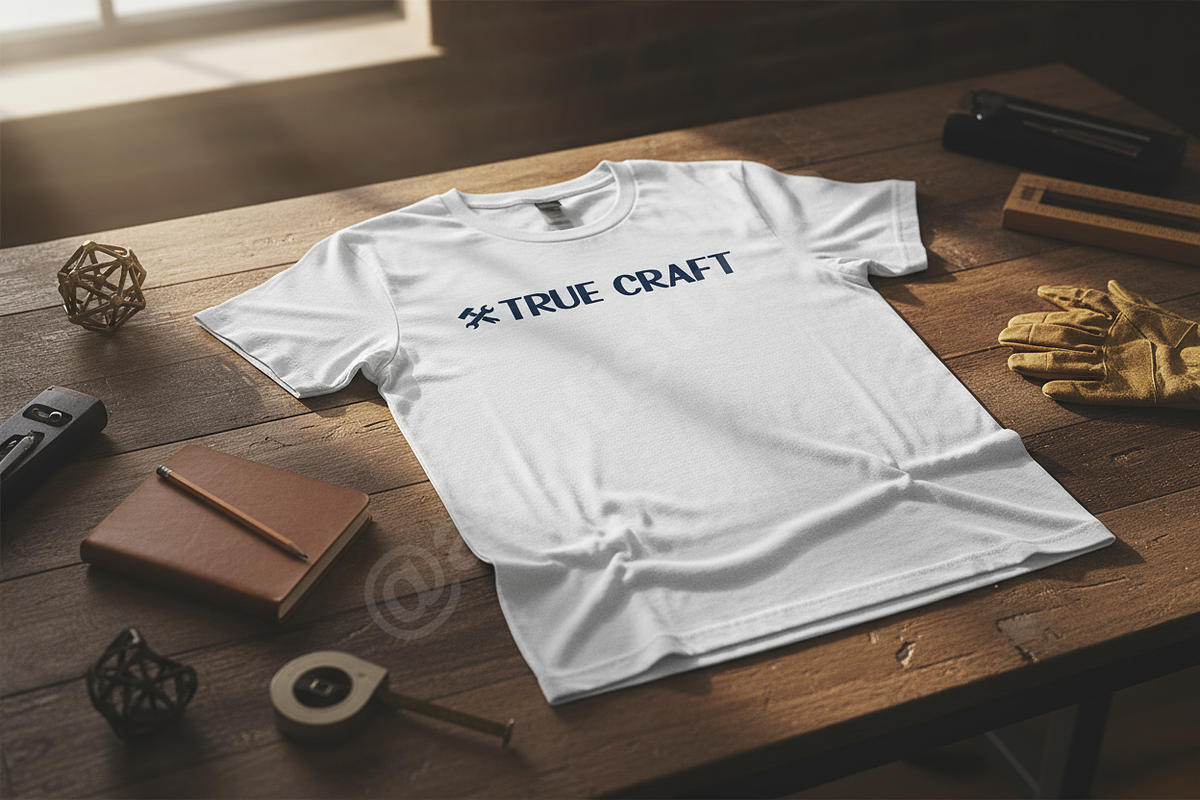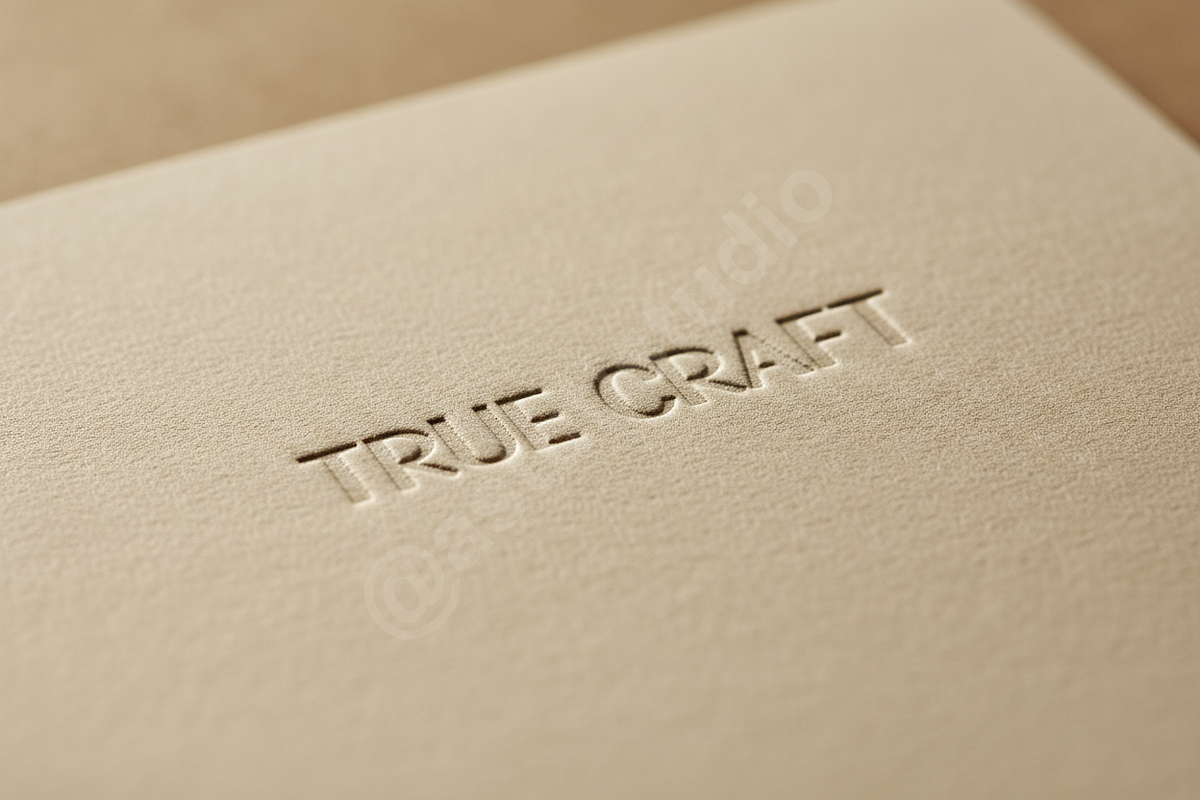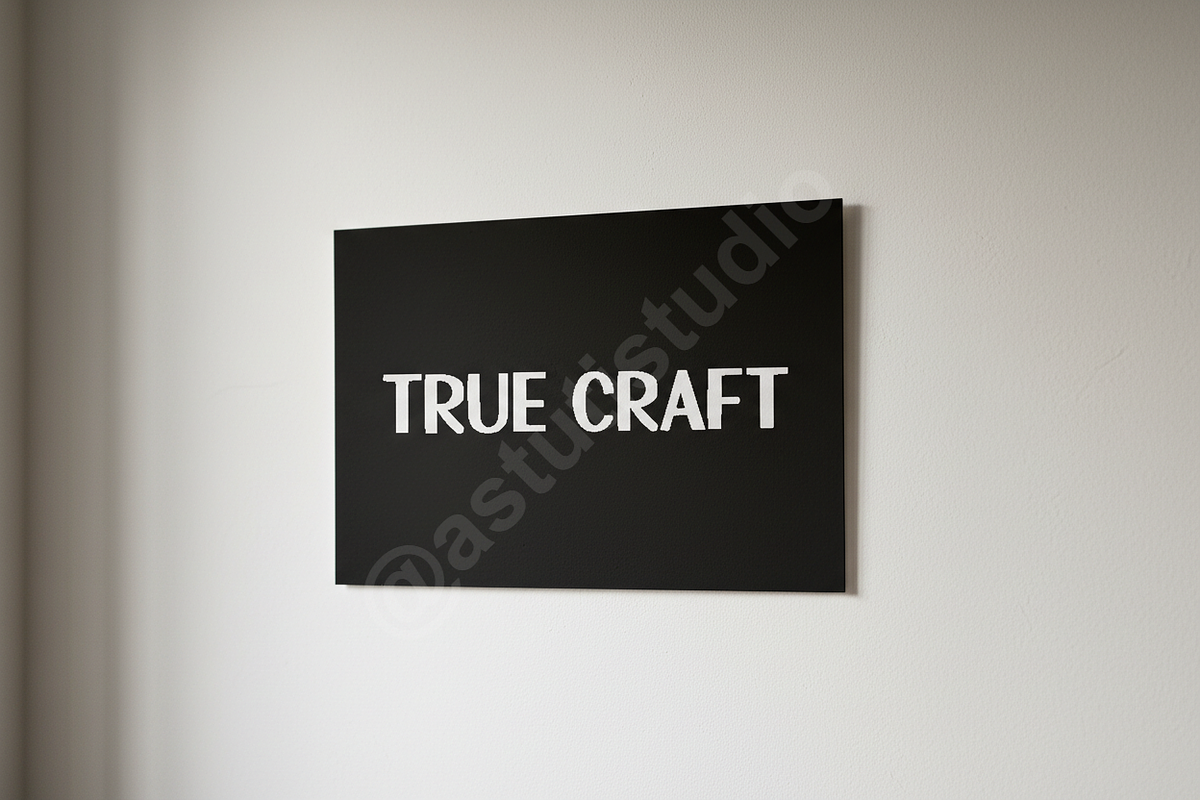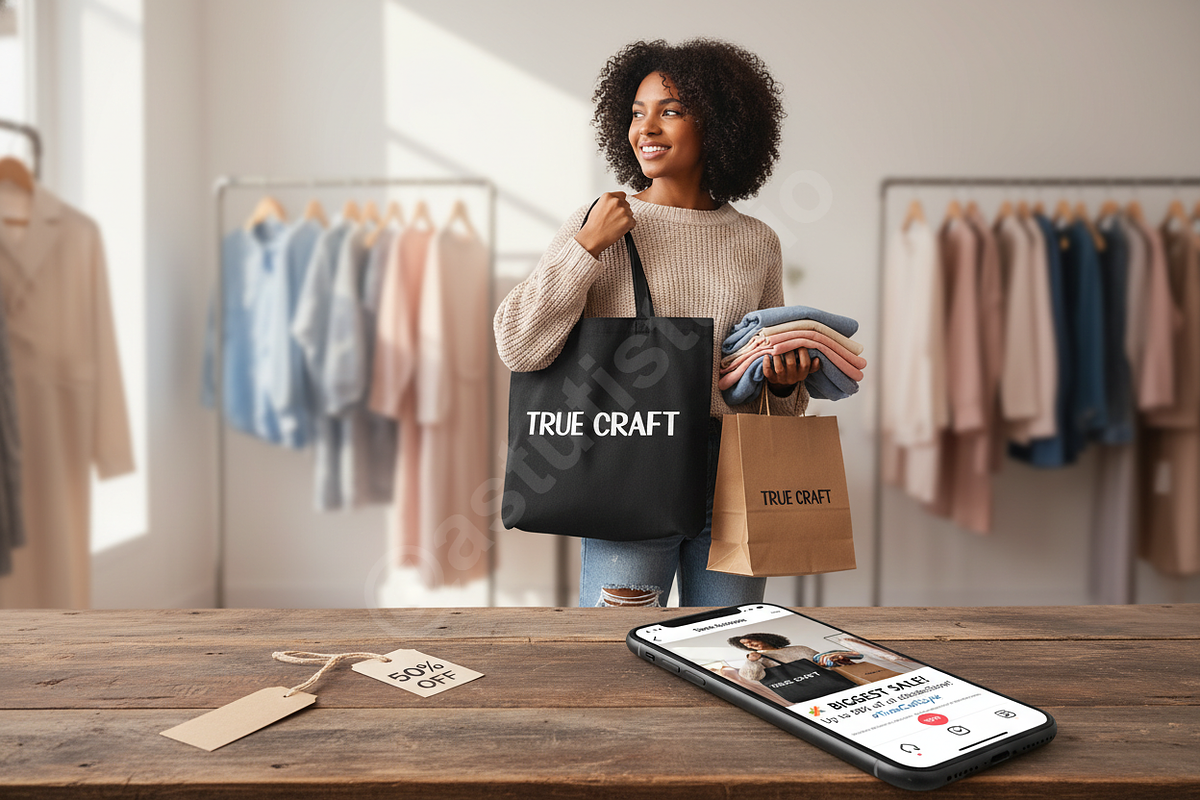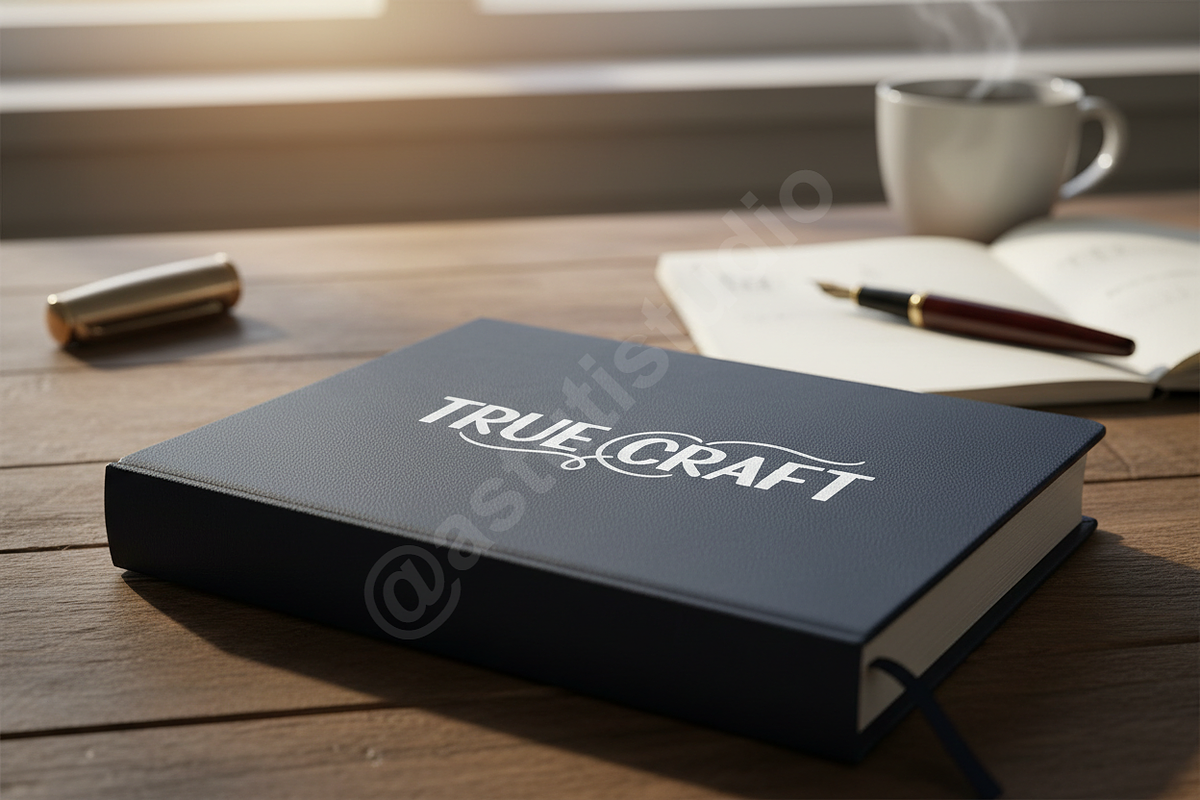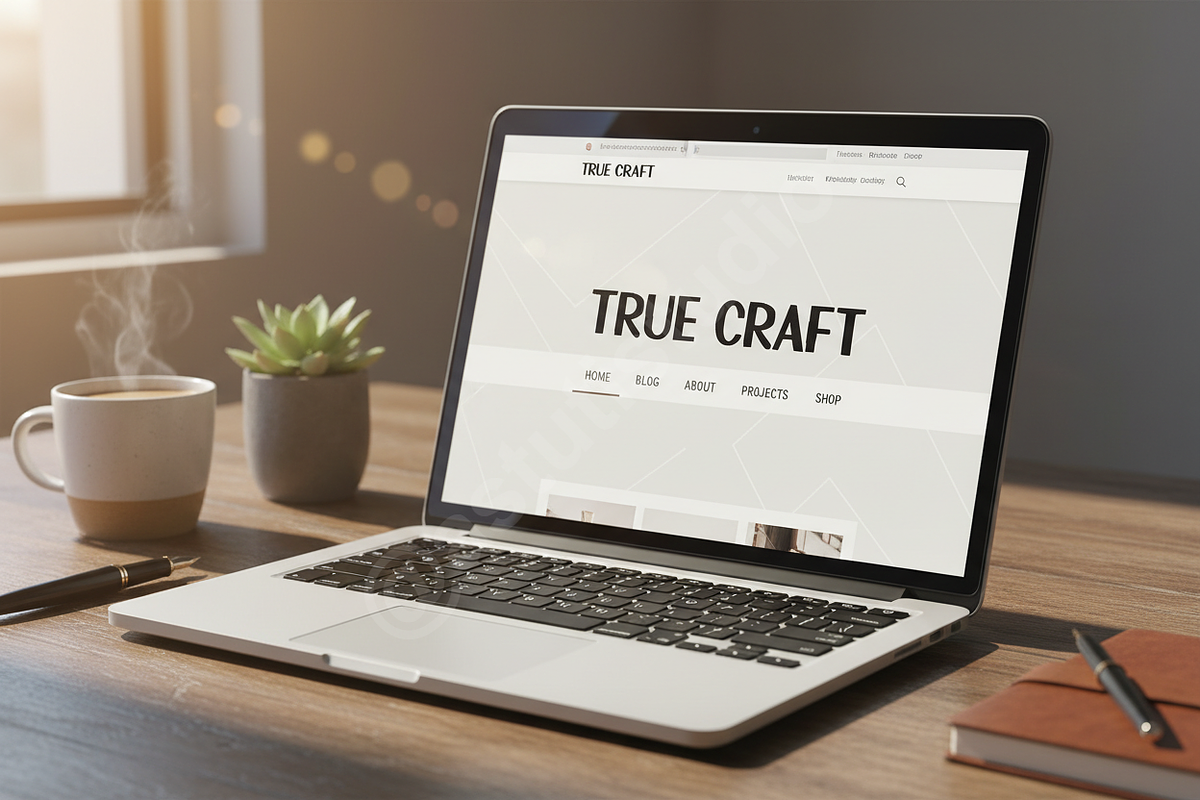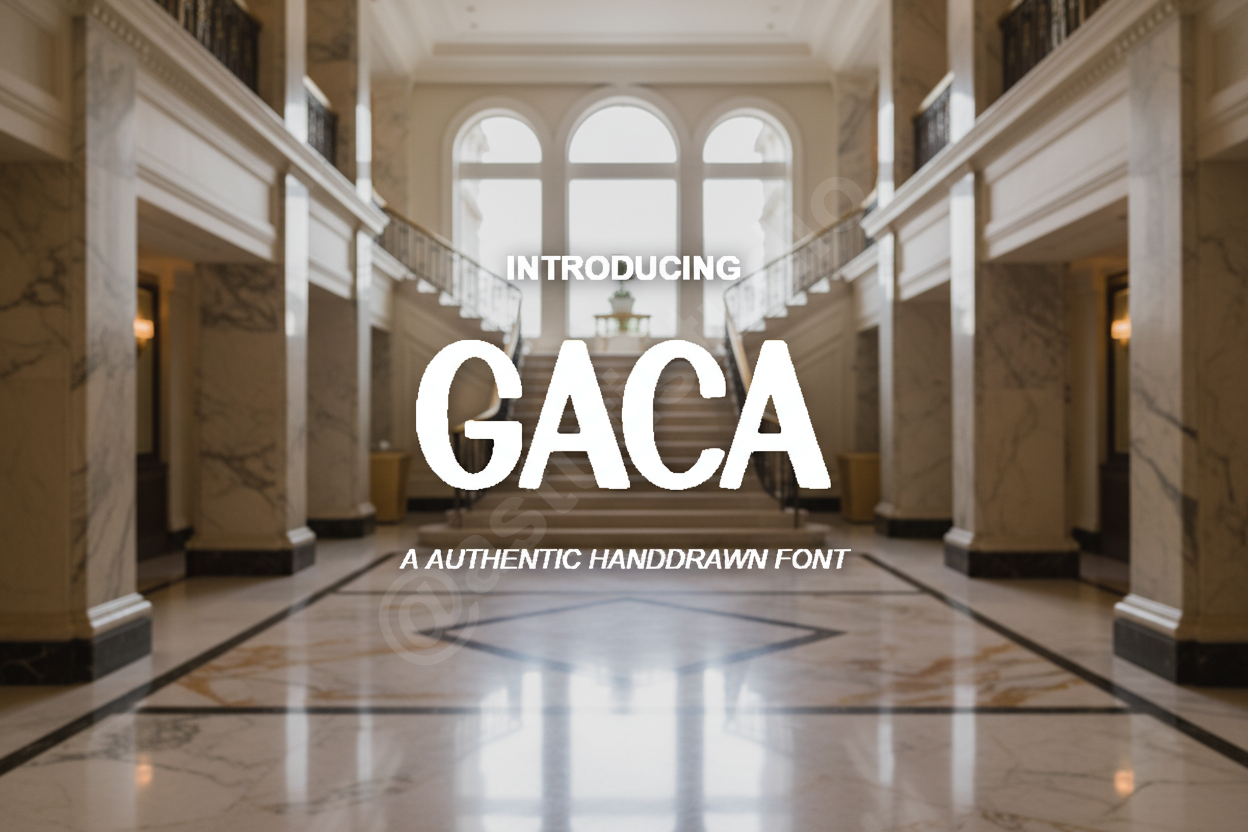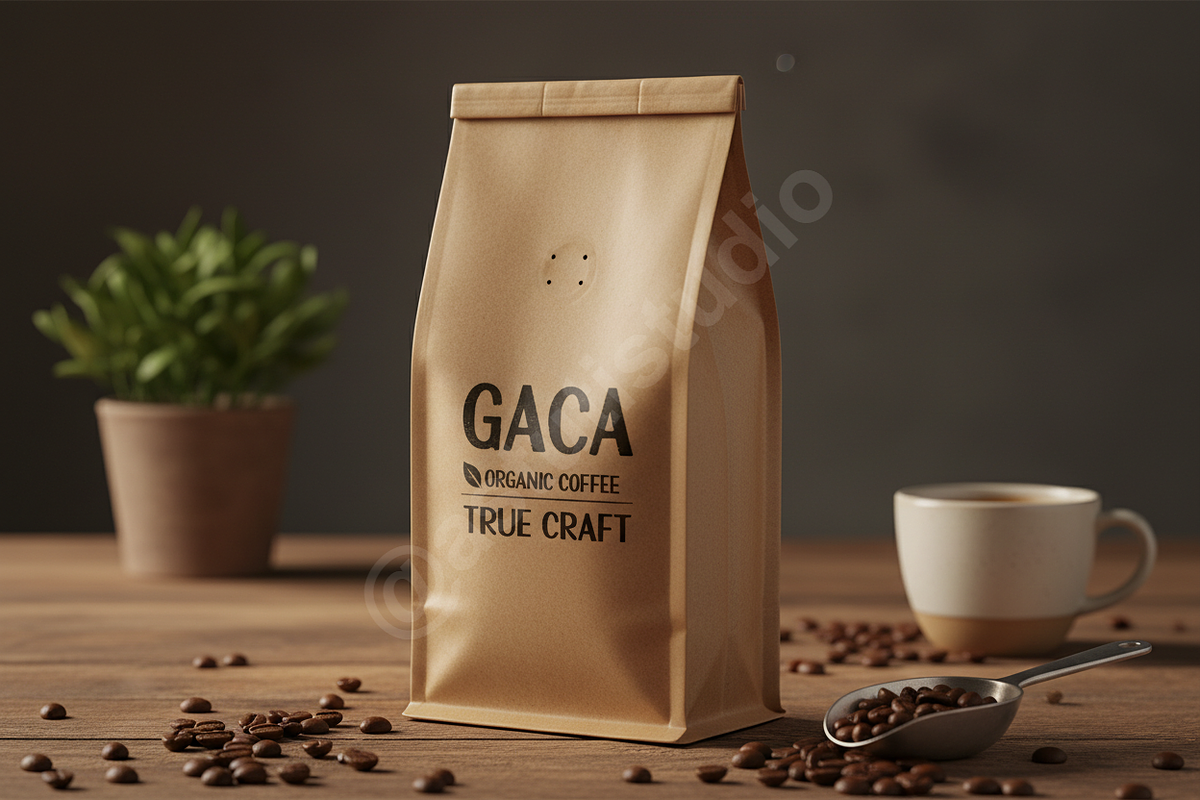
Gaca - Elegant Modern Serif Typeface
INTRODUCTION
Introducing Gaca, a meticulously crafted modern serif designed to elevate your creative projects to the highest standard of luxury. Gaca combines classic elegance with contemporary minimalism, resulting in a typeface that is both timeless and strikingly current. It is the essential choice for designers seeking sophisticated typography that makes an undeniable impact across all visual media.
APPLICATIONS & KEY FEATURES
Gaca is designed for professional versatility and excels in high-visibility environments:
• Luxury Branding: Ideal for high-end product packaging, identity systems, and boutique logos that require refined presence. • Editorial Design: Optimized for magazine layouts, annual reports, book covers, and sophisticated publishing projects. • Social Media Presence: Perfect for creating high-impact quote graphics, banner ads, and marketing visuals that demand attention. • Extensive Glyph Set: Features PUA encoding for easy access to a full range of discretionary ligatures and stylish alternates. • Multilingual Support: Includes comprehensive diacritics to ensure global accessibility.